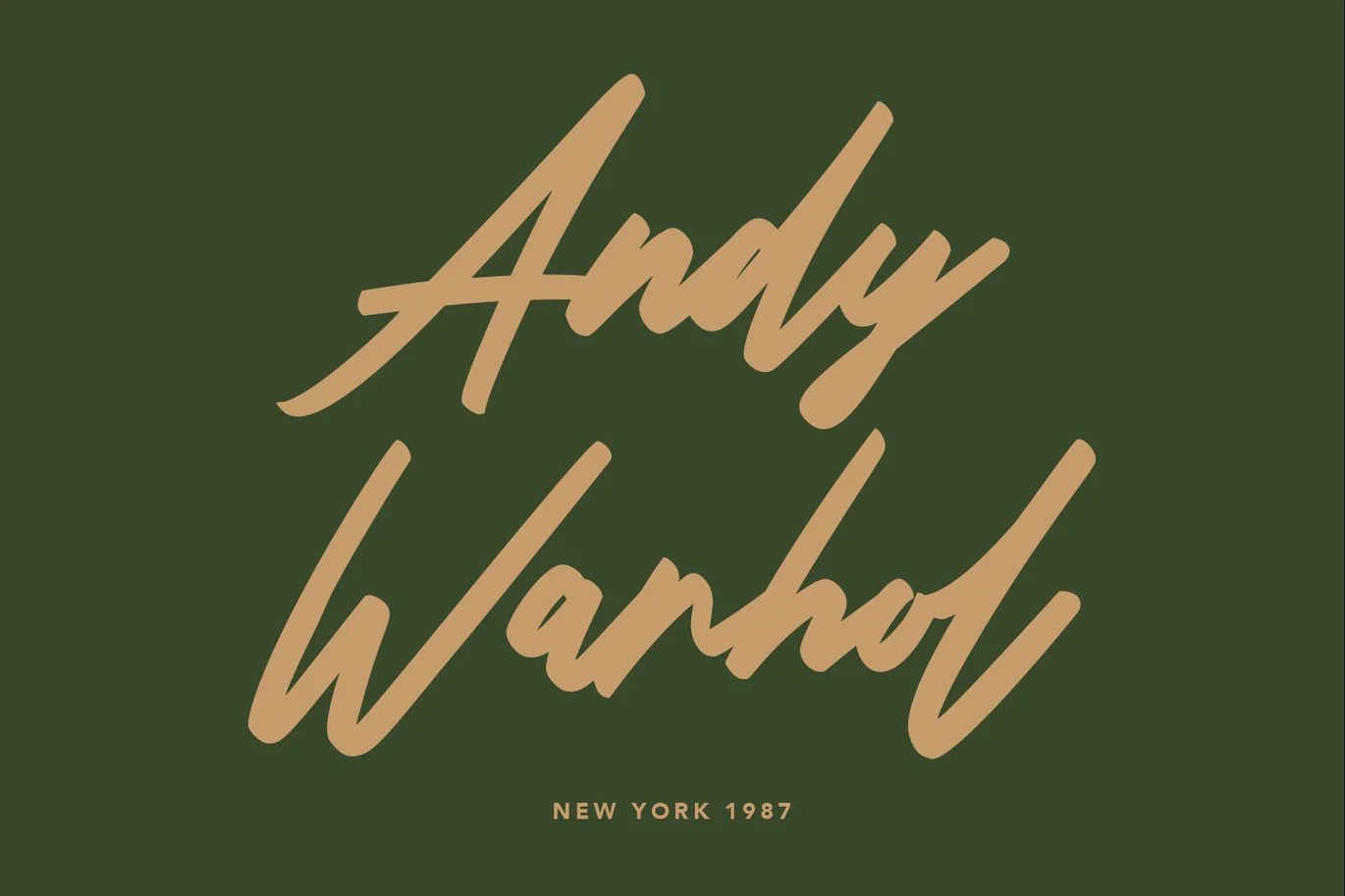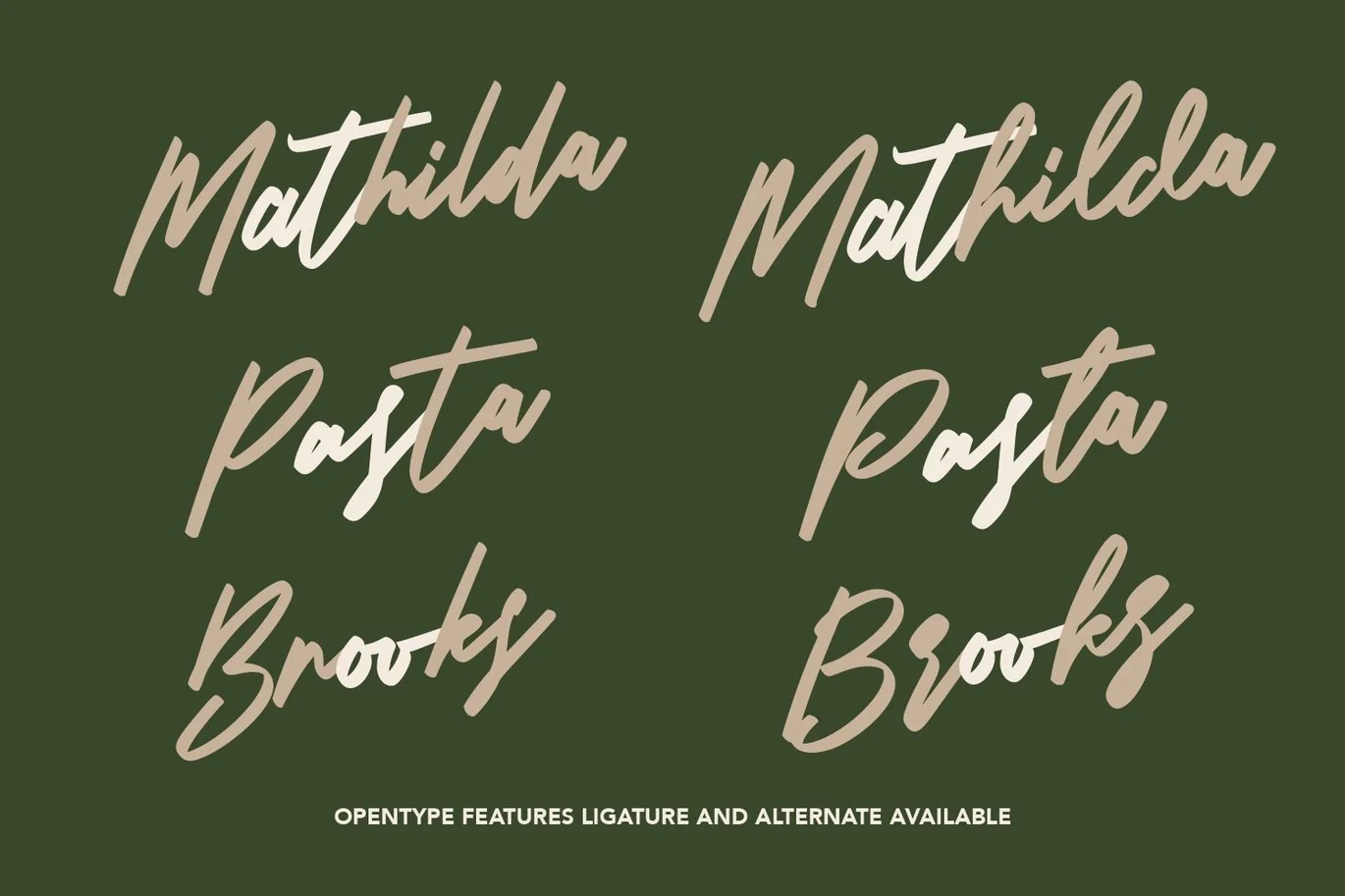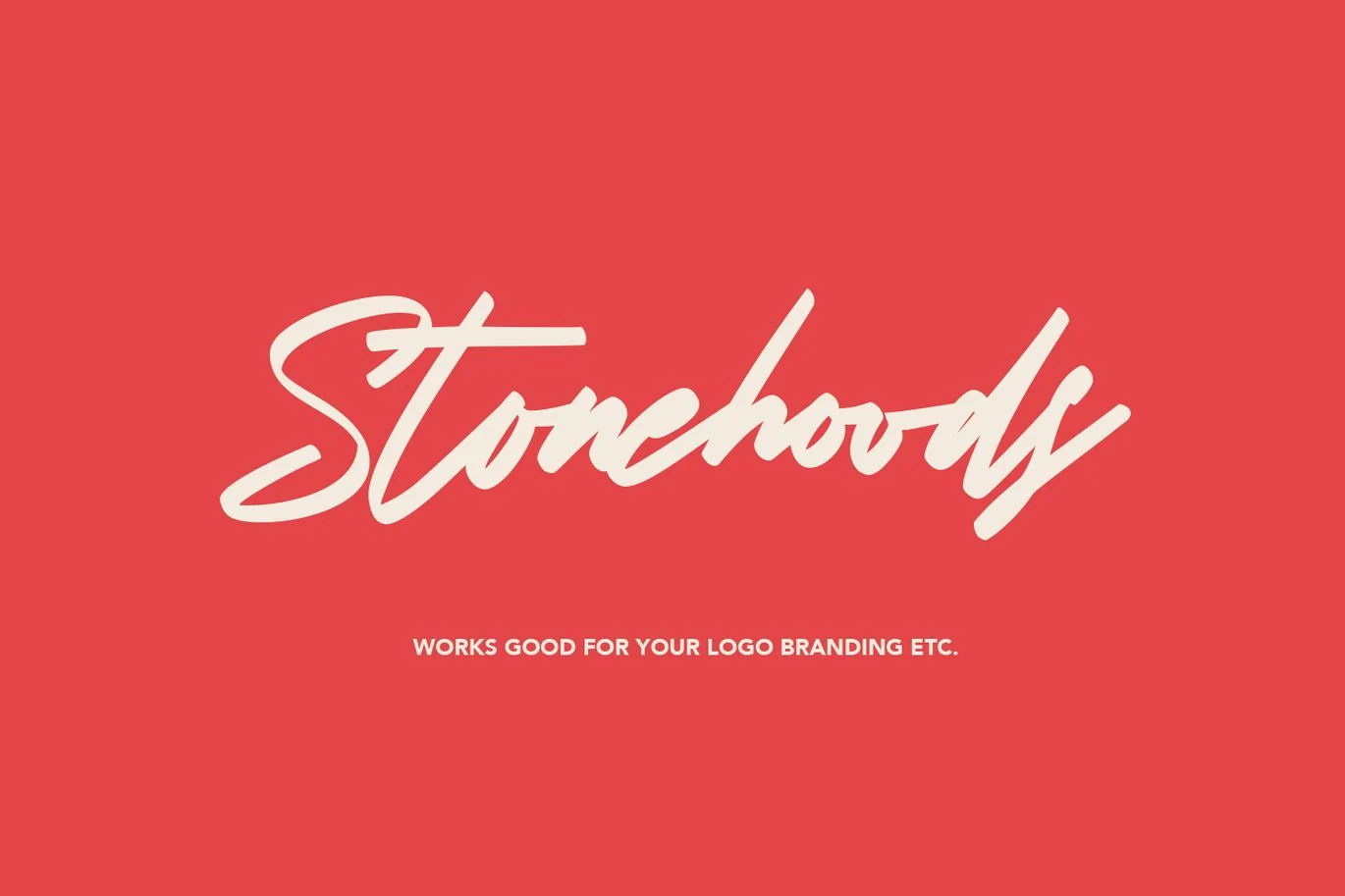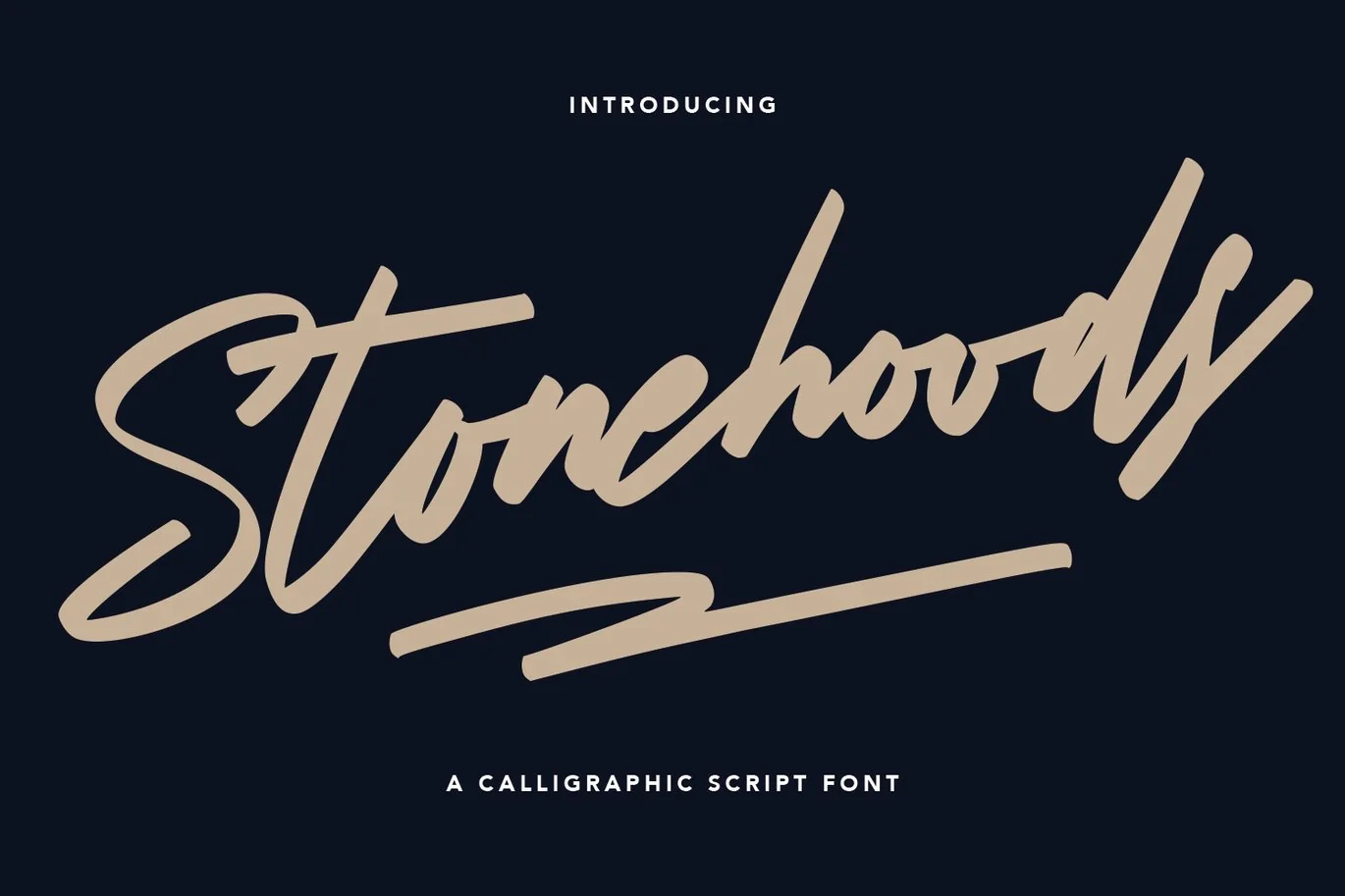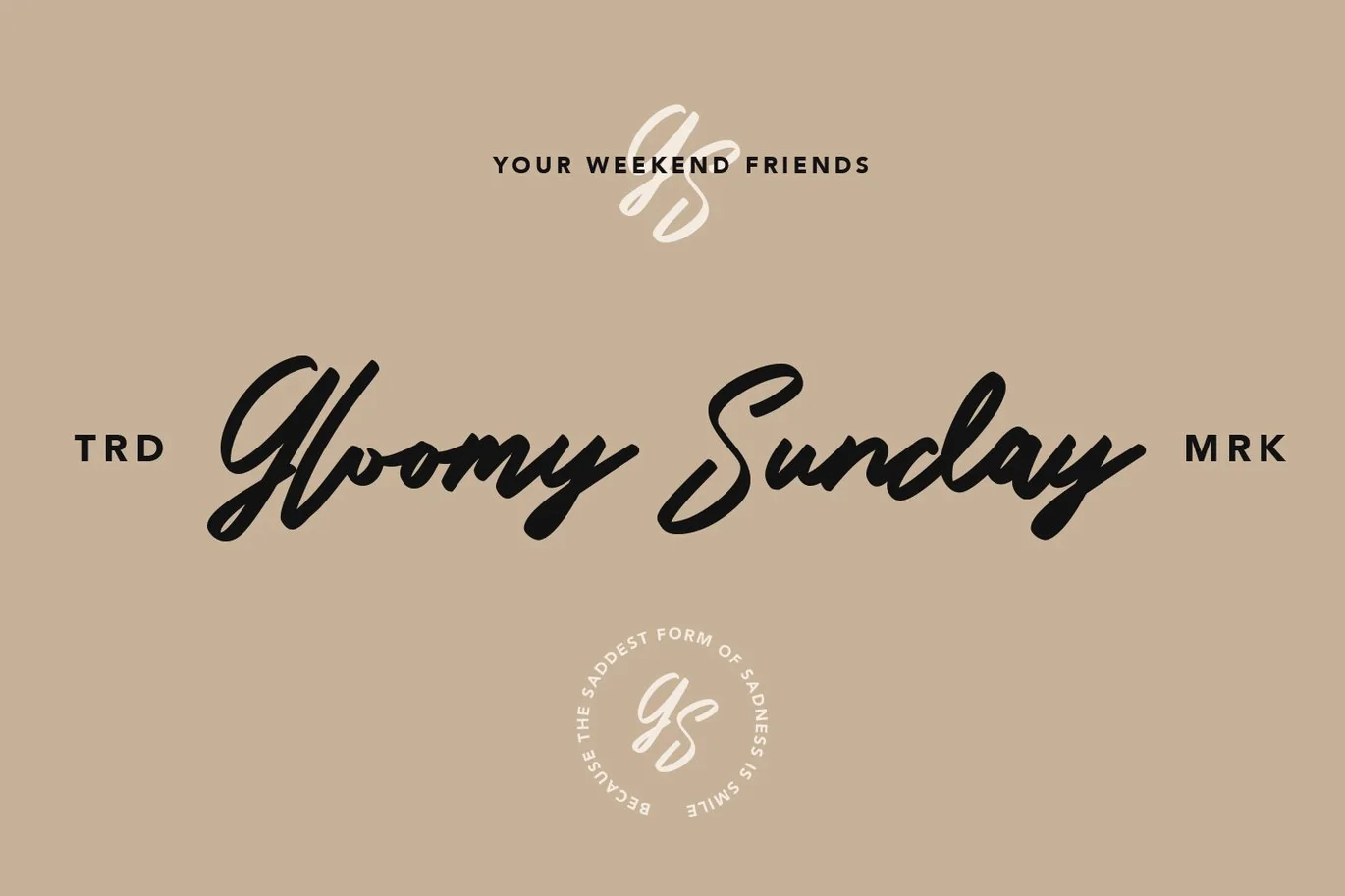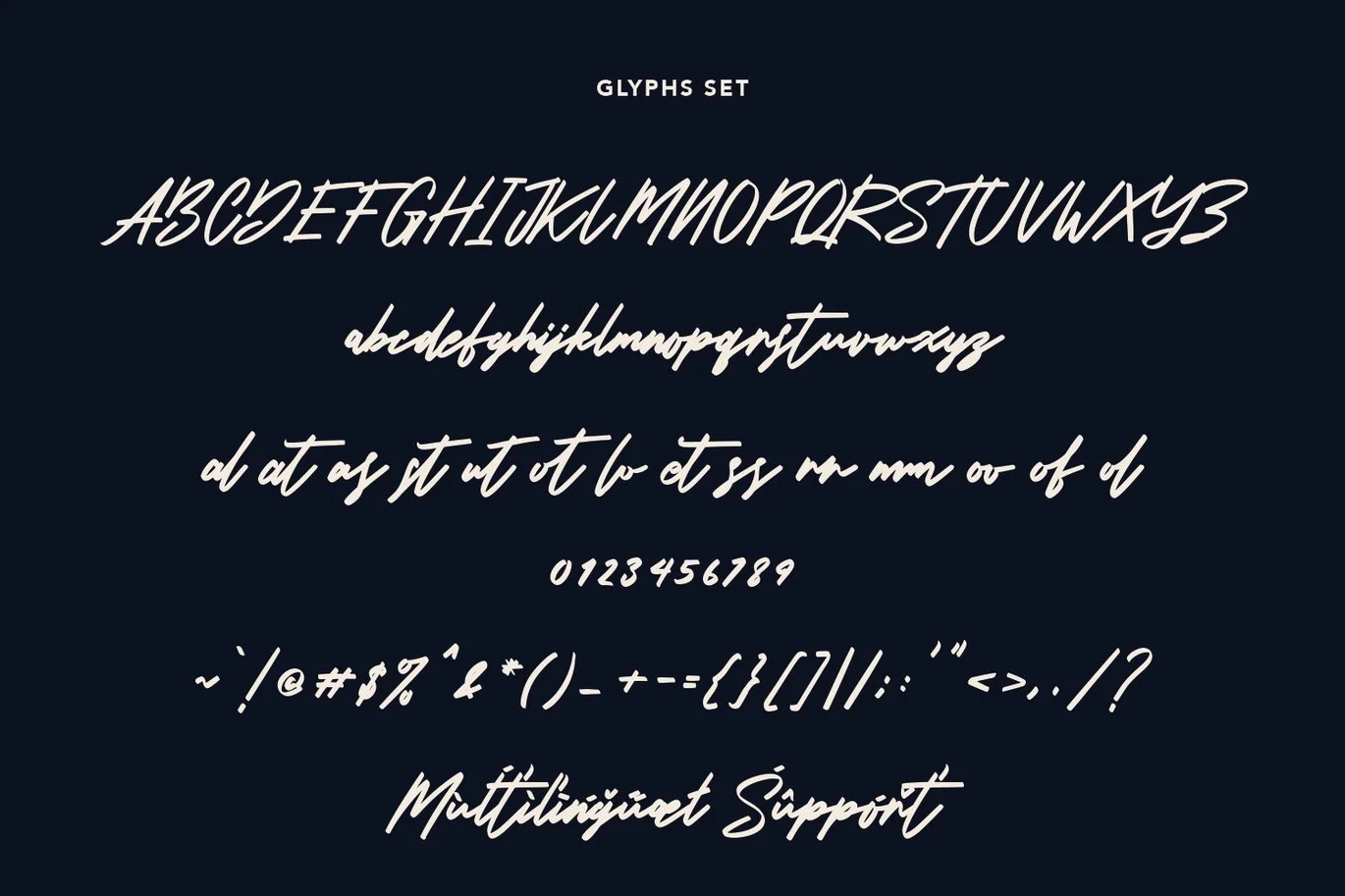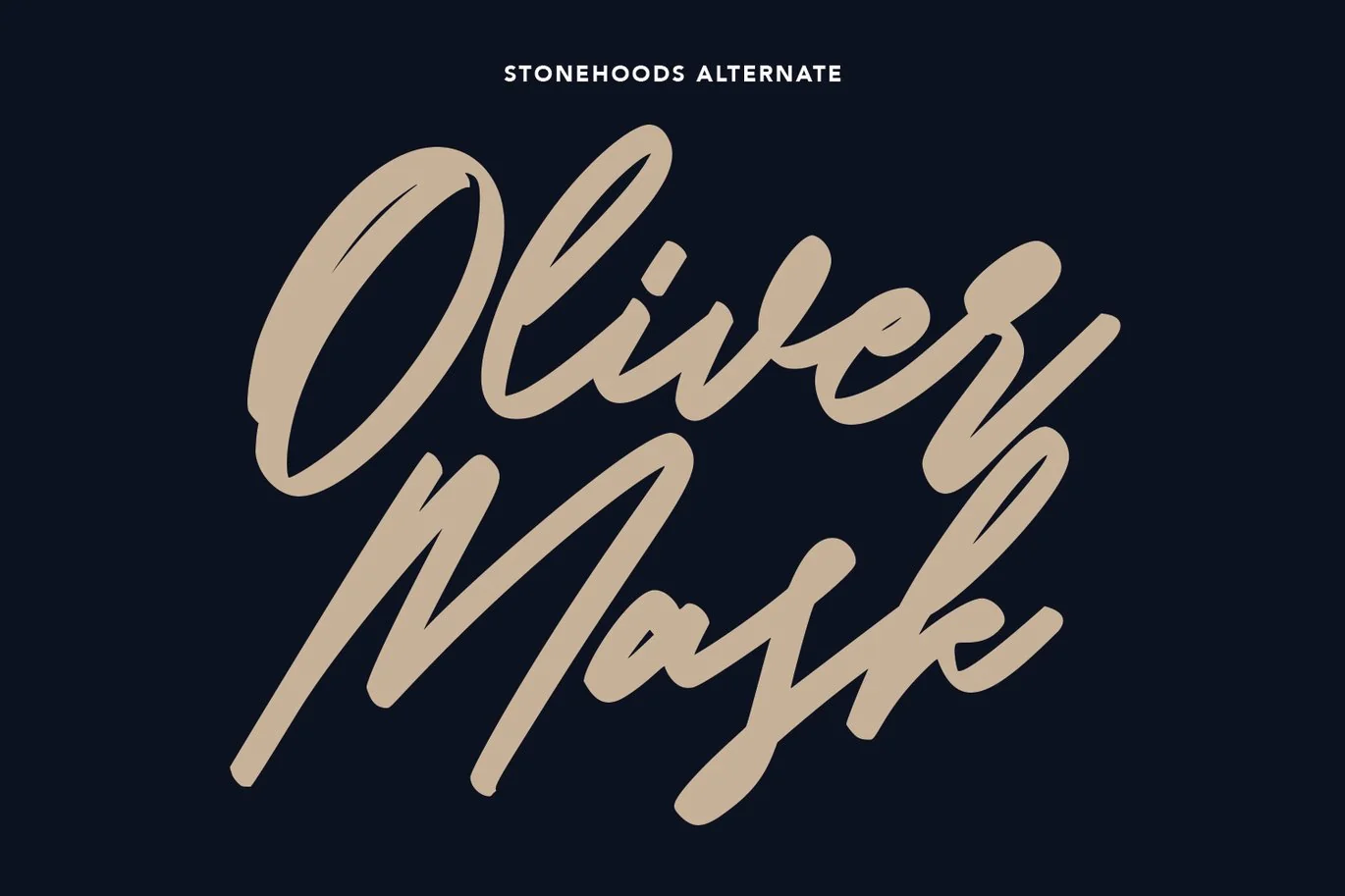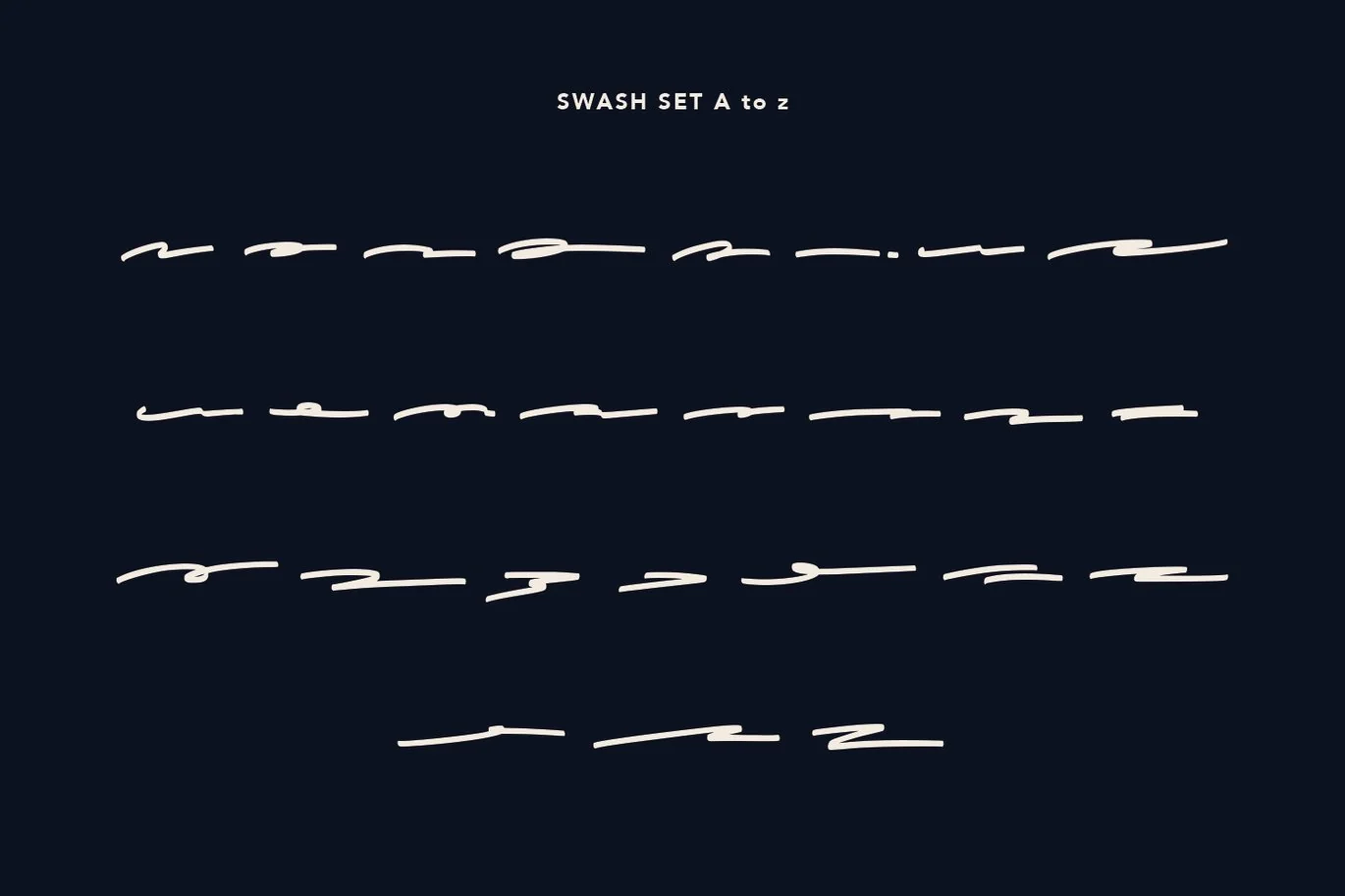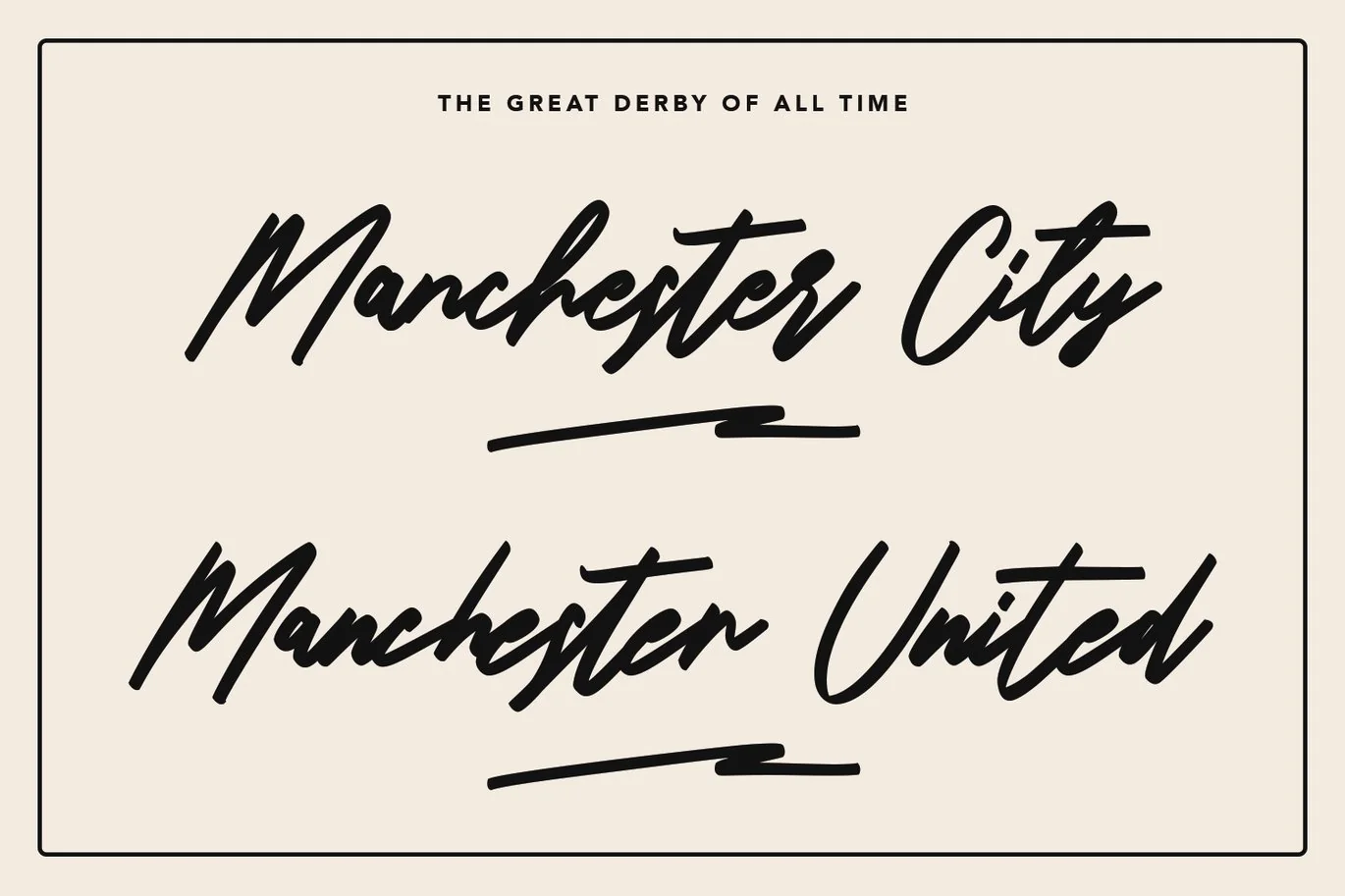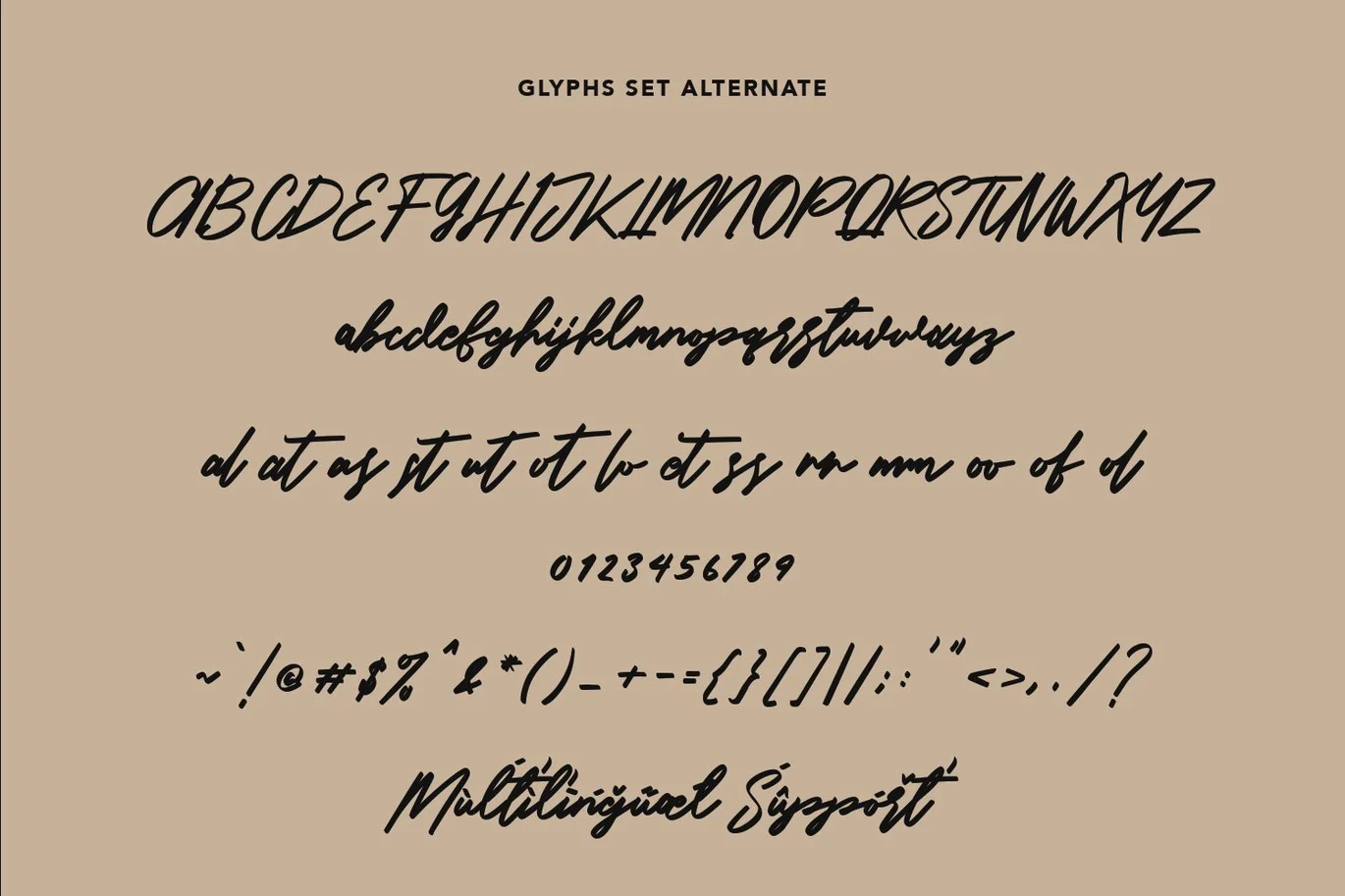
Stonehoods Calligraphic Script Font
Give your designs an authentic handcrafted feel. “Stonehoods Calligraphic Script Font” is perfectly suited to signature, stationery, logo, typography quotes, magazine or book cover, website header, clothing, branding, packaging design and more.